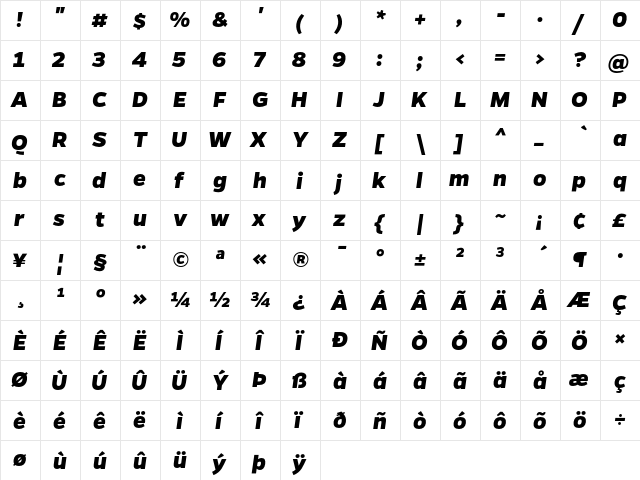
Gentona ExtraBold Italic Regular
Design Context for Gentona ExtraBold Italic Typeface
Gentona ExtraBold Italic is a composed and adaptable typeface that performs quietly and consistently across a wide range of design contexts. The dynamic lean of this cut emphasises speed and emphasis in any layout. Its bold stroke weight gives it real presence on the page.
Pro Tip: Use Gentona ExtraBold Italic for emphasis, pull quotes, and subheadings where its slanted energy can add rhythm to the layout.